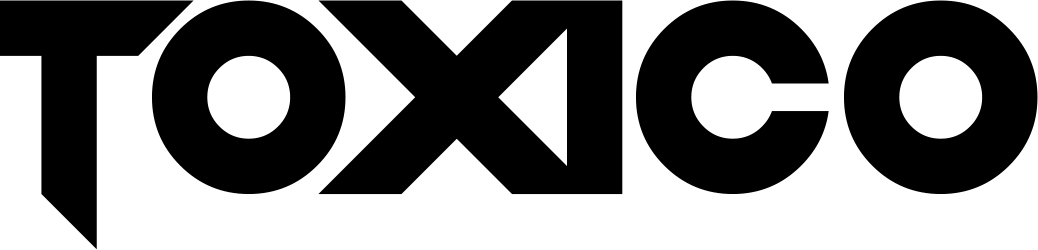
Toxico Font
Point out your typography by adding a playful, fun, and friendly element, with this modern techno font that is informal and has unique cutting edges to cause your text to stand out. Toxico has bold futuristic letterforms so you can create the amazing design you wish.
Capitalized alphabets, numbers, and symbols are included but no lowercase letters are available. Toxico is not easy to read. Books, websites, apps, texts, and movies are places to consider when something approachable is needed.